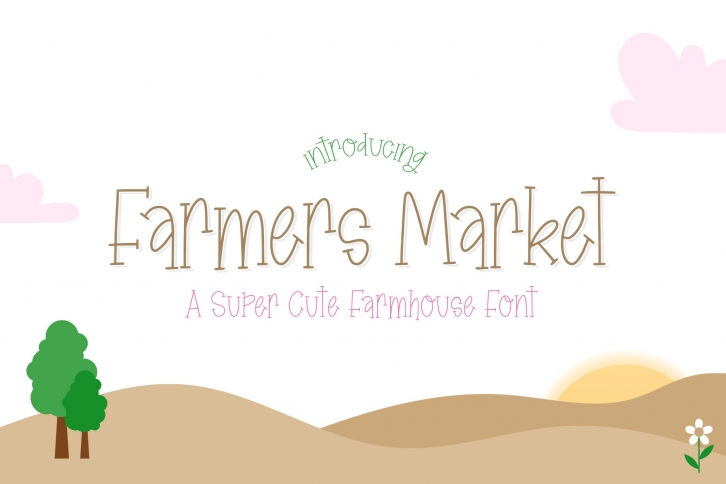
Farmers Market is a beautiful font that was designed by Salt and Pepper Designs. It's a great choice for designers and creatives who need such a font. It was released on March 23, 2021 and the file size is 2.20 MB. Farmers Market may give a more youthful, expressive and casual look to your project. It is a very beautiful, refined, elegant, and high-quality font.